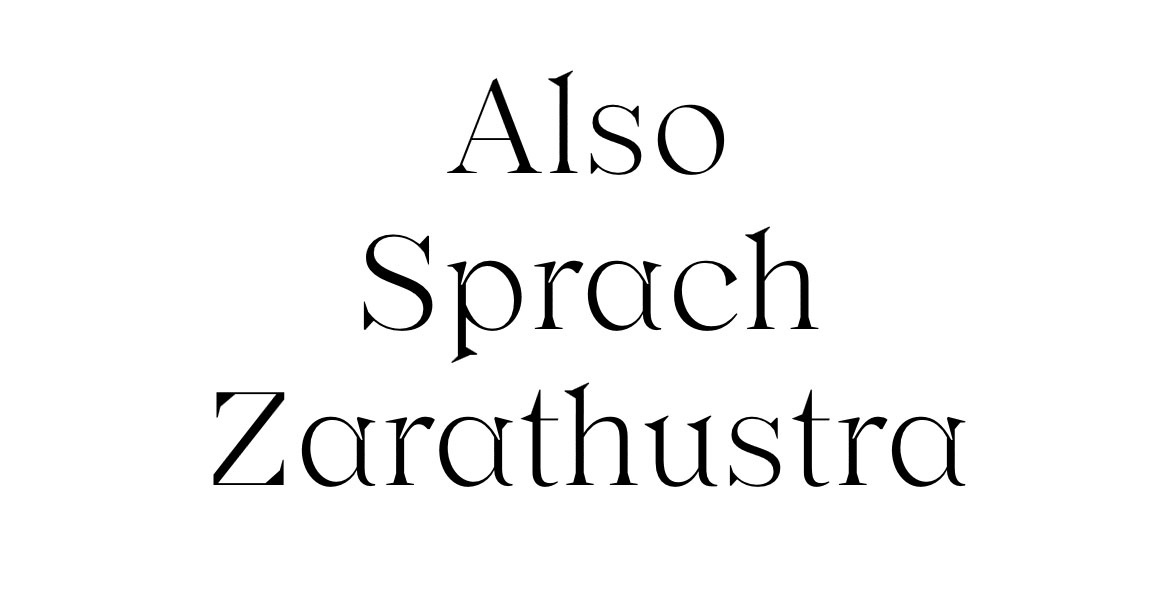
Or Lemmen Font
Or Lemmen Font excels in artistic exhibition catalogs, avant-garde gallery signage, contemporary art installations, modernist design portfolios, experimental typography projects, fine art publication designs, creative studio branding, artistic workshop materials, designer showcase presentations, and cutting-edge visual identity systems. This sophisticated typeface brings artistic innovation and creative excellence to any design-forward project.
Or Lemmen Font is exciting because it embodies the innovative spirit and artistic vision of contemporary design pioneers, featuring distinctive letterforms that reflect experimental creativity and forward-thinking aesthetic sensibilities. Its artistic character instantly conveys creative authority, design sophistication, and the bold vision that defines cutting-edge visual communication.
The Or Lemmen Font family includes Light, Regular, Medium, and Bold weights with experimental alternates, artistic flourishes, avant-garde ornamental elements, and designer-inspired glyphs that enhance the creative aesthetic, providing artistic designers with sophisticated tools for creating typography that pushes creative boundaries and celebrates innovative design thinking.
Contemporary designers appreciate Or Lemmen Font for its exceptional ability to convey artistic credibility and creative sophistication through carefully crafted letterforms. The font's innovative character and design-forward details create immediate associations with artistic excellence, creative vision, and the experimental approaches that define contemporary design leadership and artistic innovation.
The design philosophy behind Or Lemmen Font celebrates the transformative power of creative experimentation and the bold vision required to push artistic boundaries, making it particularly effective for galleries, design studios, and creative organizations that value innovation over convention. Artistic teams working on experimental projects find this font essential for establishing creative authority.
Whether used for contemporary art exhibitions, design studio portfolios, or avant-garde creative projects, Or Lemmen Font delivers the perfect synthesis of artistic sophistication and creative innovation. Its design appeal and artistic authenticity make it an indispensable choice for organizations that celebrate creative excellence, artistic vision, and the transformative power of innovative design thinking.